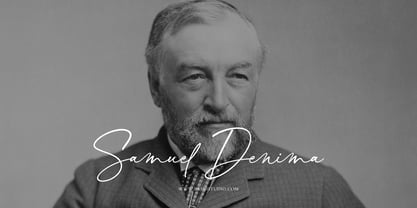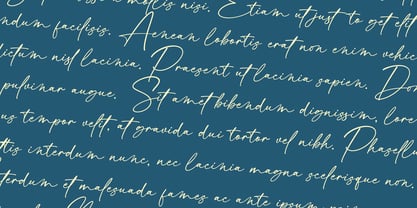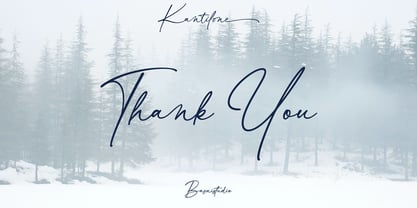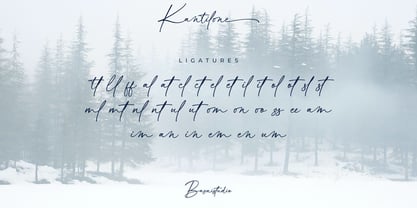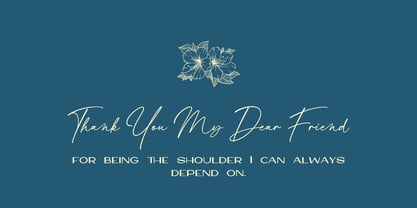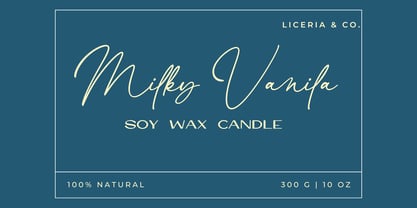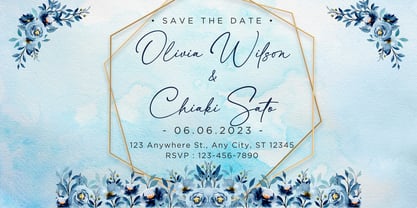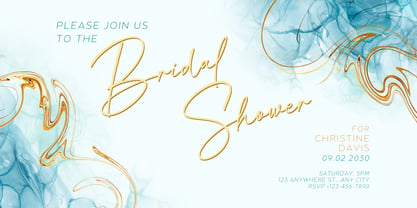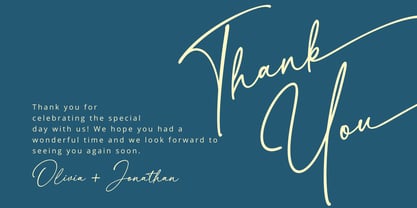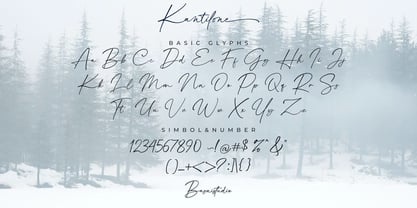
Kantilone
by Basnistudio
The Kantilone Font Family was designed by Bery Arisandi and published by Basnistudio. Kantilone contains 1 styles. More about this family
Kantilone - Elegant Handwritten Font Handwritting Font Created with real pen strokes for a natural look and casual touch to everything from branding and social media to invitations and packaging. Natural & Casual – Perfect for tagline, quotes, greeting cards, and more Authentic Handwritten Feel – Created with real pen strokes for a natural look Easy to Use – Works seamlessly with all major design programs Whether you’re building a powerful brand identity or crafting a standout design, Kantilone a Elegant Handwritting Font Created with real pen strokes for a natural look gives you the creative edge you need. What’s Included: Uppercase & lowercase letters Swashes ligatures Numbers & punctuation Multilingual Support ( Support for 90 languages ) If you have any questions please don’t hesitate to contact me Thank You
Designers: Bery Arisandi
Foundry: Basnistudio